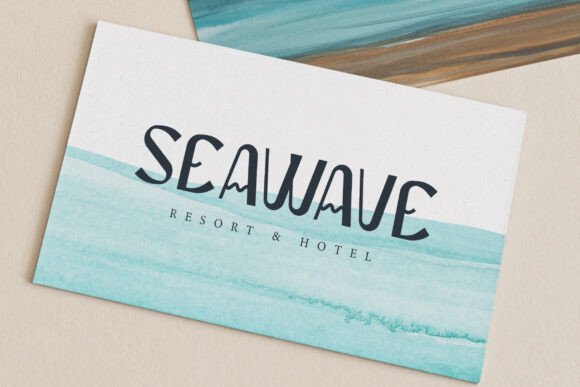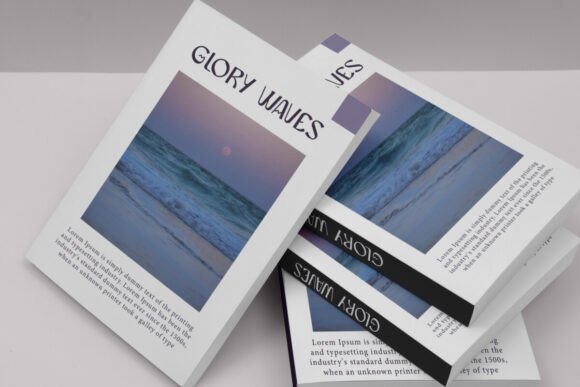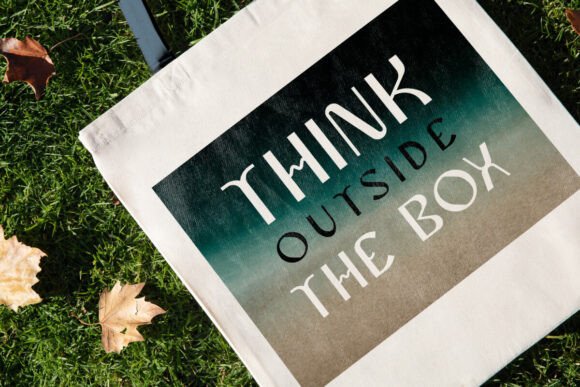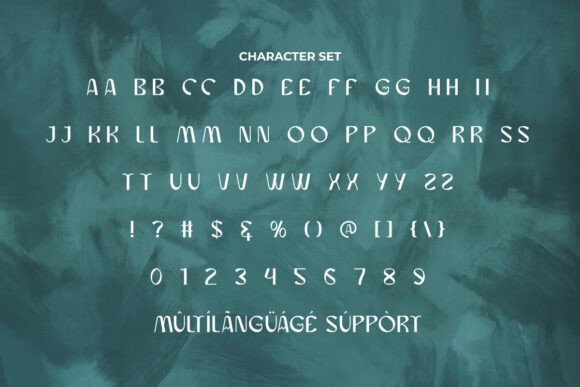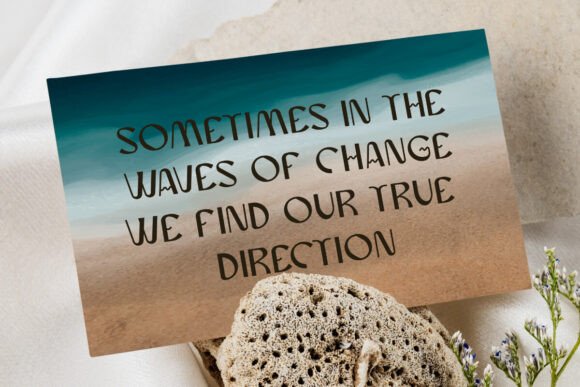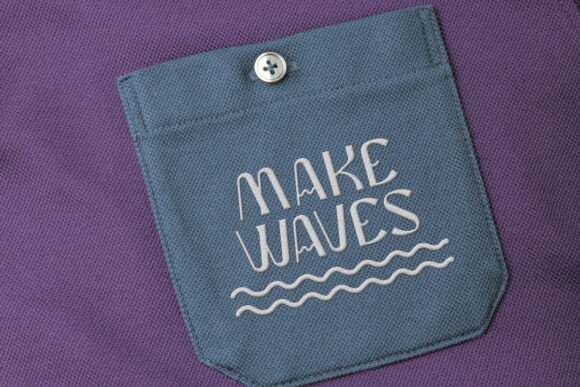
Introducing Glory Waves Font: Elevate Your Designs with a Creative Sans Serif Display Font
In the world of design, fonts play a crucial role in conveying the message and aesthetic of a brand. A unique and creative font can make all the difference in setting your designs apart from the rest. This is where Glory Waves Font comes in – a creative sans serif display font that is sure to add a touch of elegance and sophistication to your designs.
What is Glory Waves Font?
Glory Waves Font is a modern sans serif display font that features a unique wavy line on some of its letters. This distinctive characteristic gives the font a dynamic and eye-catching feel, making it perfect for designers looking to add some flair to their work. The font’s clean and crisp lines ensure that it remains highly legible, even at larger sizes.
Key Features of Glory Waves Font
- Unique Wavy Line: The font’s distinctive wavy line on some letters adds a touch of creativity and whimsy to your designs.
- Clean and Crisp Lines: The sans serif design ensures that the font remains highly legible, even at larger sizes.
- Highly Versatile: Glory Waves Font is suitable for a wide range of industries, including accessories, advertisement, café, fashion, furniture, handicrafts, printing, publishing, resort and hotel, restaurants, and more!
Industries That Can Benefit from Glory Waves Font
Glory Waves Font is an incredibly versatile font that can be used across various industries. Here are some examples of how this font can elevate your designs:
- Accessories: Add a touch of elegance to your accessory branding with Glory Waves Font.
- Advertisement: Make your ads stand out with this eye-catching font.
- Café: Create a unique and inviting atmosphere for your café with Glory Waves Font.
- Fashion: Elevate your fashion brand with this stylish and modern font.
- Furniture: Add a touch of sophistication to your furniture branding with Glory Waves Font.
- Handicrafts: Showcase your handmade products in a unique and creative way with this font.
- Printing and Publishing: Make your publications stand out with Glory Waves Font.
- Resort and Hotel: Create a luxurious and inviting atmosphere for your resort or hotel with this elegant font.
- Restaurants: Make your restaurant branding stand out with Glory Waves Font.
Why Choose Glory Waves Font?
With so many fonts available, why choose Glory Waves Font? Here are just a few reasons:
- Unique and Creative: The font’s distinctive wavy line sets it apart from other fonts.
- Highly Legible: The clean and crisp lines ensure that the font remains easy to read.
- Versatile: Glory Waves Font can be used across a wide range of industries and design applications.
Glory Waves Font is a creative and versatile sans serif display font that is sure to elevate your designs. With its unique wavy line, clean and crisp lines, and high legibility, this font is perfect for designers looking to add a touch of elegance and sophistication to their work. Whether you’re working on a branding project, advertisement, or publication, Glory Waves Font is an excellent choice.